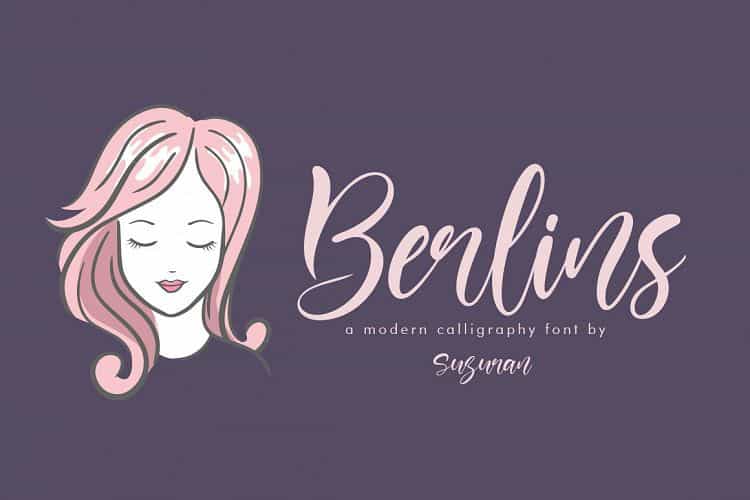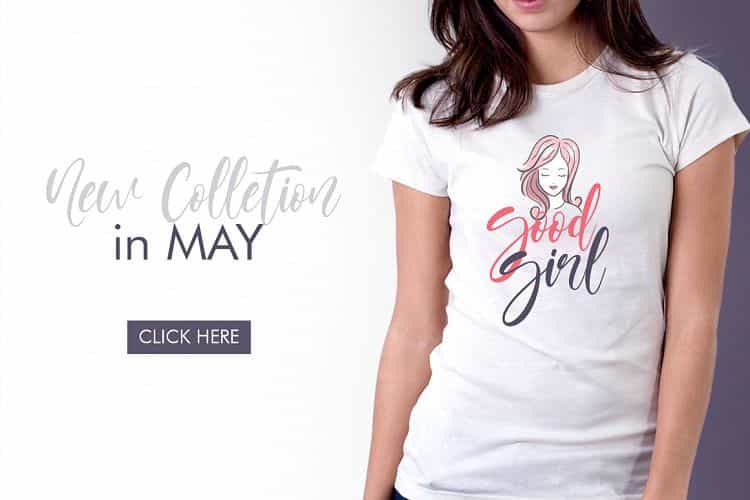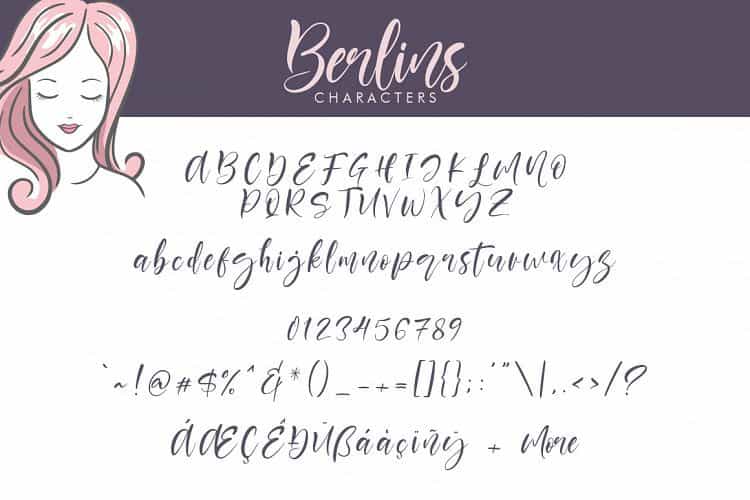
Discover Berlins Script Font, part of the Calligraphy collection—a versatile and unique font perfect for adding a personal touch to your projects. Download it for free and enjoy crafting designs with style, from invitations to social media posts. This font is available exclusively for personal use, giving you the freedom to create without limits. Unlock your creativity with Berlins Script Font today!
Introducing Berlins Font. The Berlins font, a script that is very fresh and unique style handmade + bonus font, Night in Kansas for your project. Berlins script is the best choice for logo, stationery, poster, apparel, branding,wedding invitation,cartoon and design much more!